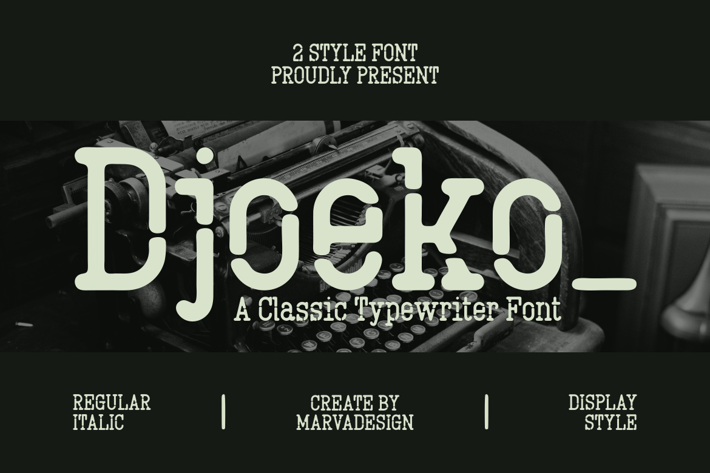
Djoeko - A Classic Typewriter Font
Introducing our new product Djoeko Font - Condensed Font
Djoeko Font - Modern Condensed Font is a bold and authentic display font. The font is suitable for any branding project like logo, Template Design, Product and many more. outstanding in a wide range of contexts.